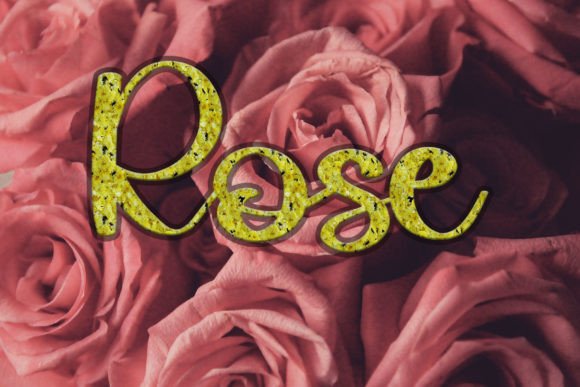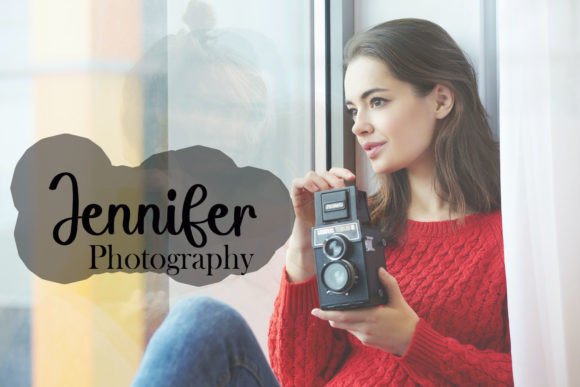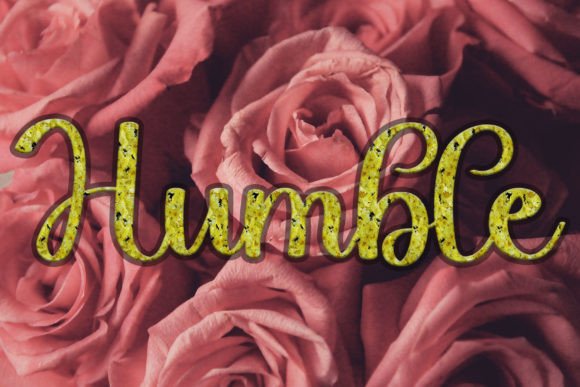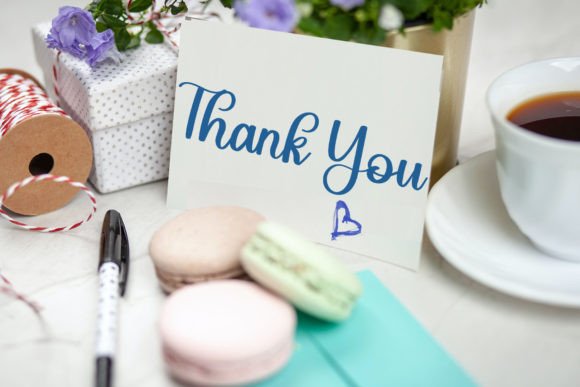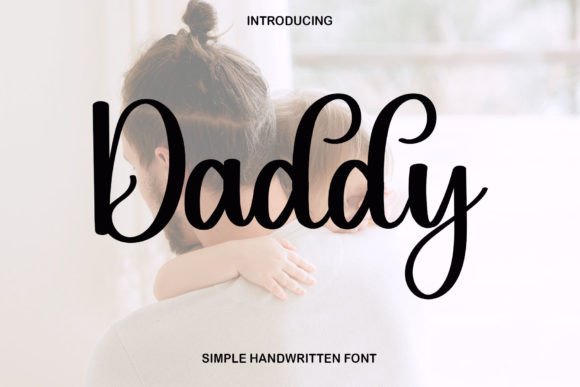
Daddy Font: Elevate Your Designs with Elegance and Timeless Style
Are you on the hunt for a font that exudes elegance, sophistication, and a touch of timeless charm? Look no further than the Daddy Font, a beautiful handwritten font that is sure to capture your heart. With its incredibly distinct style, Daddy Font is the perfect addition to any design project, whether you’re a seasoned designer or a crafty DIY enthusiast.
The Characteristics of Daddy Font
Daddy Font is a neat and beautiful handwritten font that boasts an elegant touch, making it ideal for a wide range of projects. Its distinct style is characterized by:
- Flowing lines and curves: Daddy Font features smooth, flowing lines and curves that give it a sense of fluidity and movement.
- Elegant letterforms: Each letterform in Daddy Font is carefully crafted to exude elegance and sophistication, making it perfect for designs that require a touch of refinement.
- Timeless appeal: Unlike trendy fonts that quickly go out of style, Daddy Font has a timeless quality that ensures your designs will remain stylish for years to come.
Why Choose Daddy Font?
So, why should you choose Daddy Font for your next design project? Here are just a few compelling reasons:
- Versatility: Daddy Font is incredibly versatile, making it suitable for a wide range of projects, from wedding invitations and branding materials to social media graphics and blog posts.
- Easy to read: Despite its elegant and cursive nature, Daddy Font is surprisingly easy to read, making it perfect for designs that require a personal touch without sacrificing legibility.
- Unique style: With its distinct and timeless style, Daddy Font is sure to set your designs apart from the crowd and make them truly memorable.
How to Use Daddy Font in Your Designs
Using Daddy Font in your designs is incredibly easy, and its versatility ensures that it can be applied to a wide range of projects. Here are a few ideas to get you started:
- Wedding invitations and stationery: Add a touch of elegance and sophistication to your wedding invitations, save-the-dates, and other stationery with Daddy Font.
- Branding and packaging: Use Daddy Font to create stunning branding materials, such as logos, business cards, and product packaging, that exude refinement and style.
- Social media graphics: Elevate your social media presence with eye-catching graphics featuring Daddy Font, perfect for Instagram posts, Facebook graphics, and more.
- Blog posts and articles: Add a personal touch to your blog posts and articles with Daddy Font, making them more engaging and memorable for your readers.
Tips for Getting the Most Out of Daddy Font
To get the most out of Daddy Font, here are a few expert tips:
- Experiment with colors: Daddy Font looks stunning in a range of colors, so don’t be afraid to experiment and find the perfect hue to match your brand or design aesthetic.
- Mix and match: Combine Daddy Font with other fonts to create a unique and visually appealing design that showcases your creativity.
- Pay attention to spacing: To ensure your design looks polished and professional, pay attention to spacing and kerning when using Daddy Font.
In conclusion, Daddy Font is a beautiful and elegant handwritten font that is sure to elevate your designs and make them truly unforgettable. With its timeless style, versatility, and ease of use, Daddy Font is the perfect addition to any design project. Whether you’re a seasoned designer or a crafty DIY enthusiast, Daddy Font is sure to capture your heart and inspire your creativity.